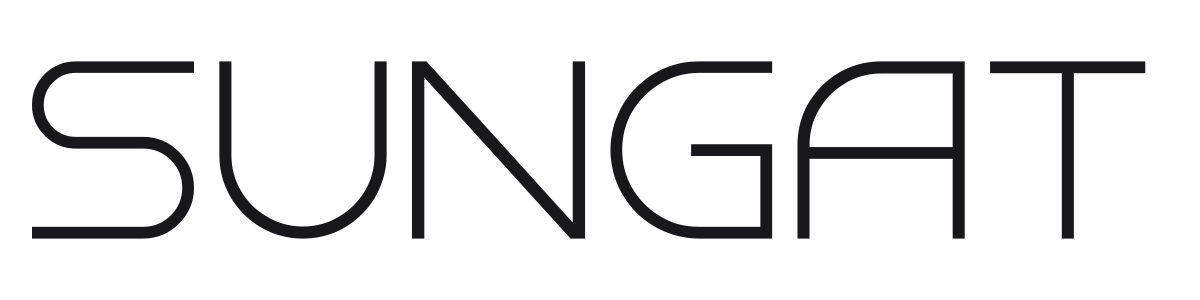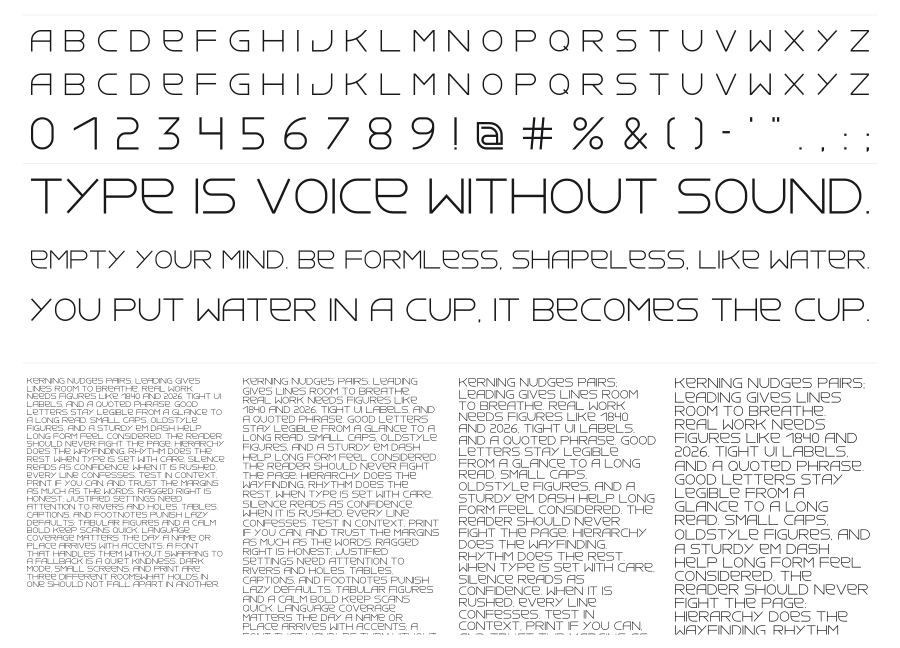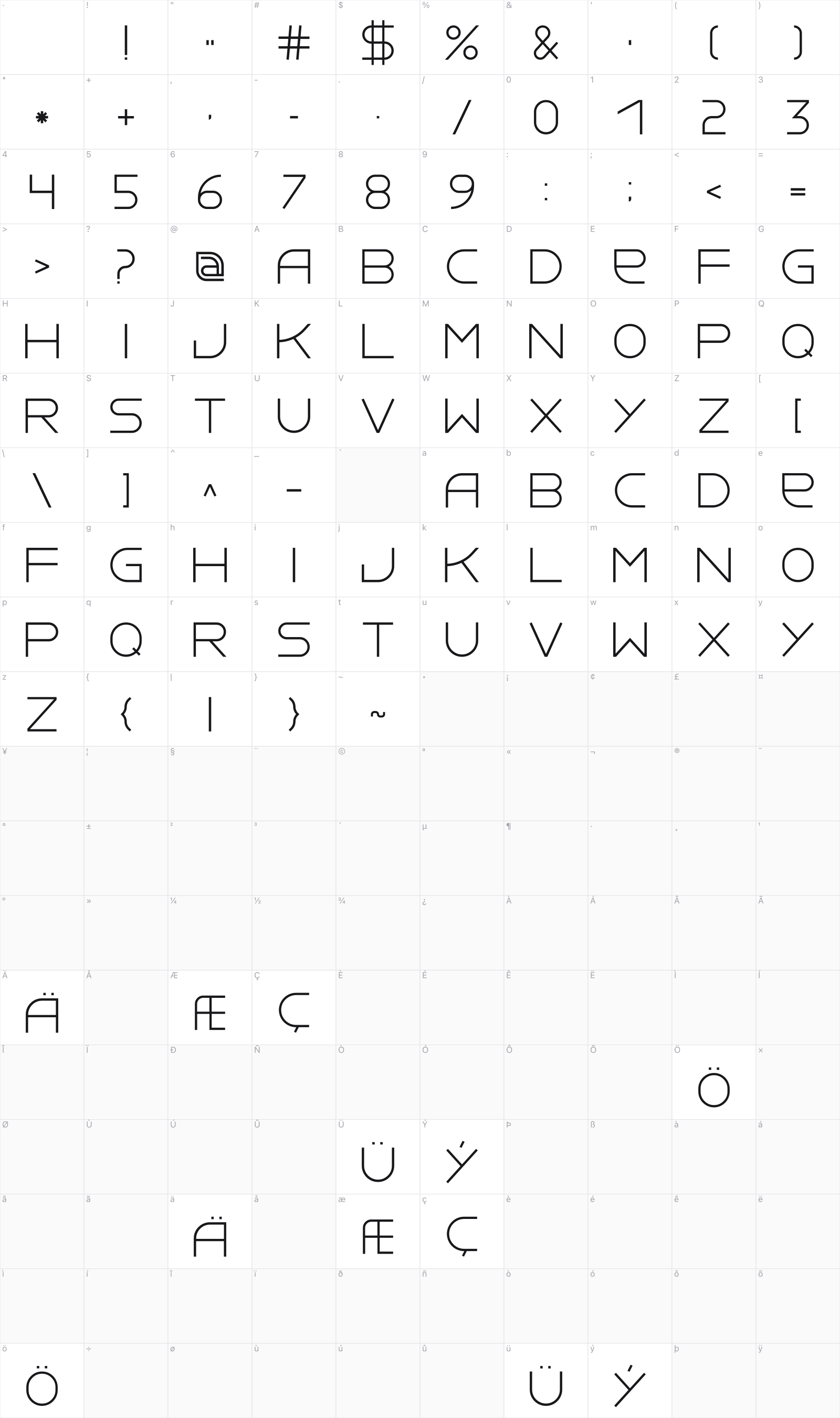
Sungat
by Dawud Hezretow
Sungat is a thin geometric sans-serif built around clean, rounded strokes and a distinctly futuristic sensibility. Its near-zero stroke contrast and wide, open proportions give it an airy, interface-like quality that reads instantly as technological. It works best at large sizes where its delicate construction can breathe.